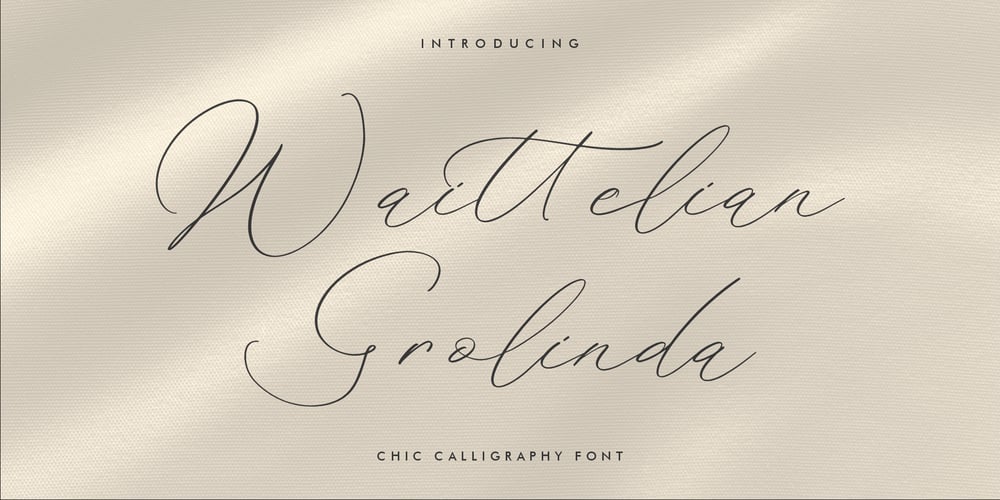
Waittelian Grolinda Font Family was designed by Heru Utama Putra and published by Letterena Studios. Waittelian Grolinda contains 2 styles and family package options. Waittelian Grolinda – Chic Calligraphy Font.A luxury script that has own unique style & modern look.This typeface is perfect for an elegant & luxury logo, book or movie title design, fashion brand, magazine, clothes, lettering, quotes, and so much more.